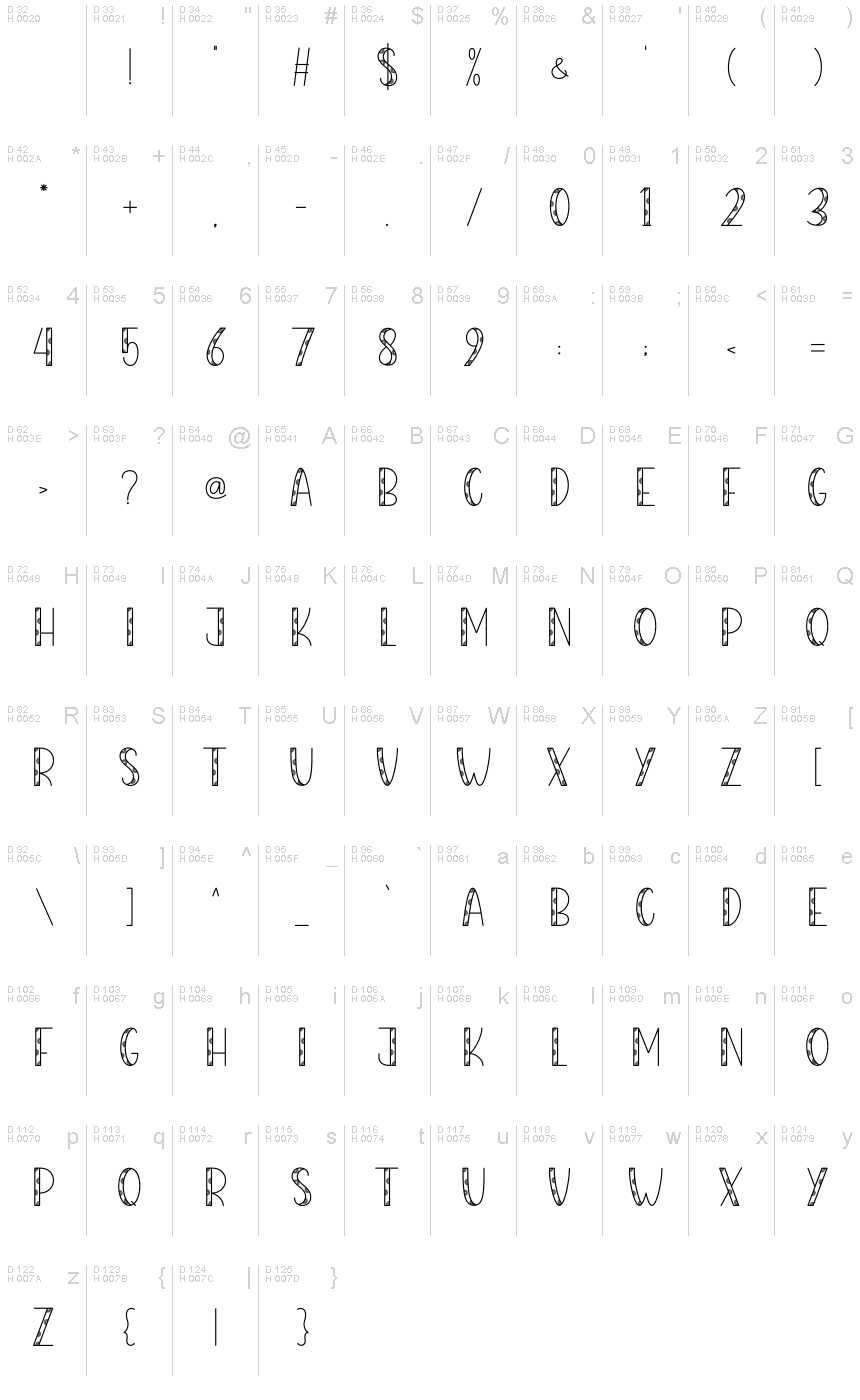
Engel
Engel, the captivating display font crafted by Andi Moz, exudes a sense of bold and sophisticated elegance. With its condensed design and decorative flair, this font commands attention, showcasing a striking visual presence. The intricate, interlocking letterforms create a visually striking and memorable aesthetic, inviting the viewer to explore the nuances and intricacies of each character.
Engel's versatility shines through its ability to seamlessly adapt to a variety of design contexts. Its bold and attention-grabbing nature makes it an excellent choice for headings, logos, and other high-impact design elements, while its condensed width allows for efficient use of space. Engel's distinctive style lends itself well to branding, packaging, and editorial design, where its unique personality can make a lasting impression.